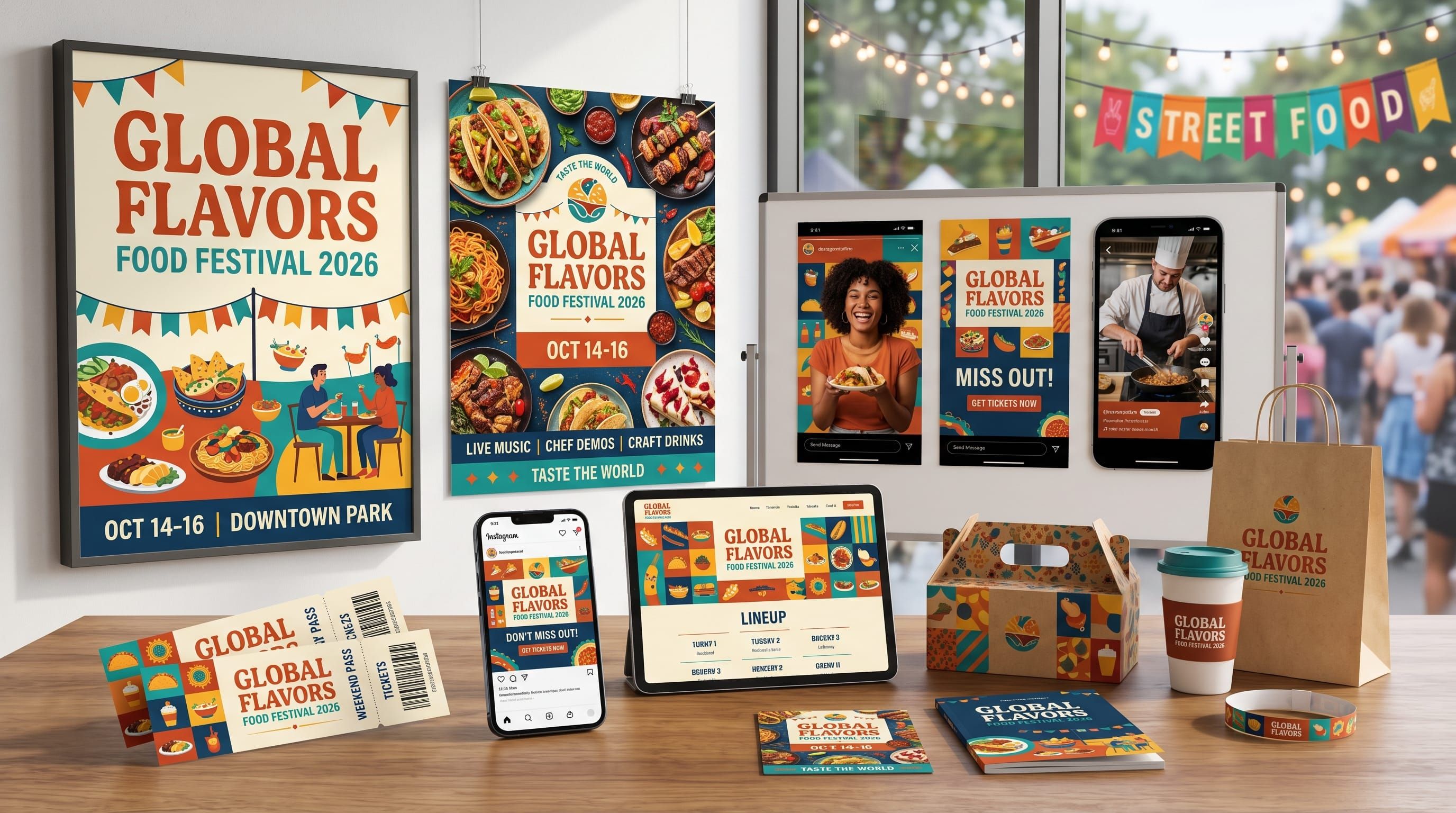
Festival Graphic Design Styles for Better Marketing Results
The success of an event often depends on how effectively it captures attention before the event even begins. This is where festival graphic design styles become essential. Whether promoting a music festival, food fair, cultural celebration, art market, holiday event, or community gathering, visual design helps shape audience perception and drive engagement.
Modern audiences are constantly exposed to advertising. As a result, event marketers must create visuals that stand out instantly. Strong festival graphic design styles help communicate event themes, build anticipation, establish brand recognition, and increase ticket sales. From posters and social media graphics to websites and merchandise, consistent design creates a memorable experience long before attendees arrive.
The best festival graphic design styles combine typography, color systems, illustrations, photography, layouts, and branding strategies into a unified visual identity. In this guide, you will discover popular festival design trends, practical templates, recommended tools, workflow strategies, and DM Letter Studio font pairings that help create stronger marketing results.
Why Festival Graphic Design Styles Matter
Visual identity influences audience decisions.
Professional festival graphic design styles help organizers:
• Increase event visibility
• Improve marketing performance
• Strengthen brand recognition
• Increase social sharing
• Improve ticket sales
• Attract sponsors
• Build audience loyalty
Good design helps events feel more credible and exciting.
Understanding Festival Graphic Design Styles
Every festival requires a unique visual personality.
The most effective festival graphic design styles reflect:
• Event theme
• Audience interests
• Cultural context
• Marketing objectives
• Brand positioning
Consistency across all marketing materials improves recognition.
Core Elements of Festival Branding
Most successful festival campaigns include:
• Strong typography
• Consistent color systems
• Clear visual hierarchy
• Branded illustrations
• Recognizable layouts
These elements help create a cohesive identity.
Music Festival Graphic Design Styles
Music events often use energetic visual systems.
EDM Festival Design Style
Characteristics include:
• Neon gradients
• Futuristic graphics
• Bold typography
• Dynamic compositions
This style creates excitement and energy.
Indie Festival Design Style
Features include:
• Retro aesthetics
• Hand-drawn artwork
• Vintage textures
• Artistic layouts
These festival graphic design styles often feel authentic and creative.
Food Festival Graphic Design Styles
Food events require approachable branding.
Artisan Market Style
Design elements include:
• Organic textures
• Handcrafted illustrations
• Warm earth tones
• Rustic typography
These visuals create trust and authenticity.
Street Food Festival Style
Popular characteristics:
• Bright colors
• Bold headlines
• Fun illustrations
• Energetic compositions
Food-focused festivals benefit from vibrant visual communication.
Cultural Festival Graphic Design Styles
Cultural events often celebrate heritage and storytelling.
Traditional Festival Design Style
Common features include:
• Cultural patterns
• Decorative elements
• Heritage-inspired colors
• Traditional typography
These designs communicate cultural identity.
Modern Cultural Festival Branding
Modern approaches often combine:
• Contemporary layouts
• Traditional motifs
• Bold typography
• Digital illustrations
This blend appeals to broader audiences.
Holiday Festival Graphic Design Styles
Seasonal events benefit from strong themes.
Christmas Festival Design Style
Popular elements include:
• Red and green palettes
• Decorative ornaments
• Snow-themed graphics
• Festive typography
Holiday branding helps create emotional connections.
Halloween Festival Design Style
Features often include:
• Orange and black colors
• Atmospheric effects
• Spooky illustrations
• Dramatic typography
Seasonal festival graphic design styles create immediate recognition.
Festival Graphic Design Templates for Marketing Campaigns
Templates improve consistency and efficiency.
Festival Poster Template
Recommended structure:
Header
• Festival logo
• Event title
Main Section
• Hero artwork
• Featured attractions
Information Area
• Date
• Location